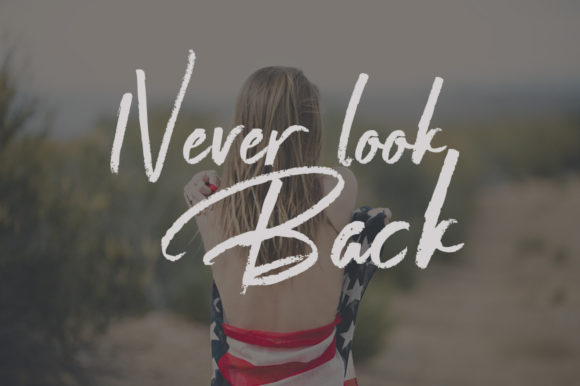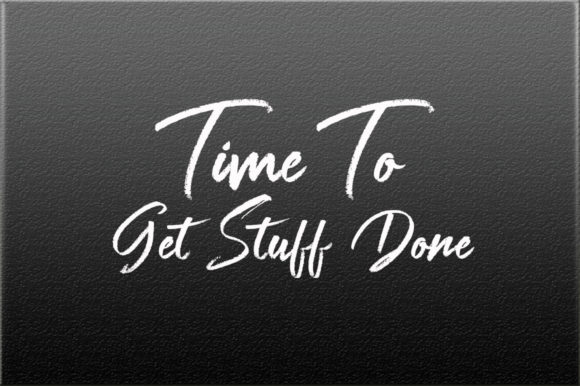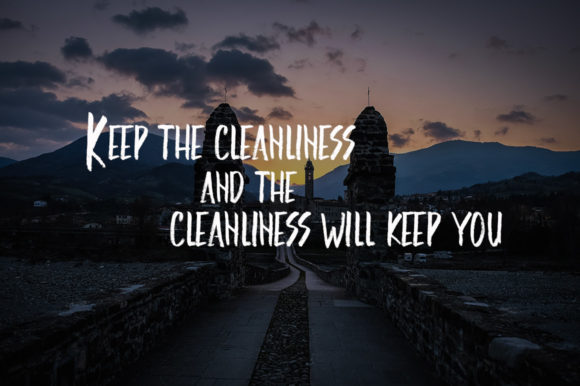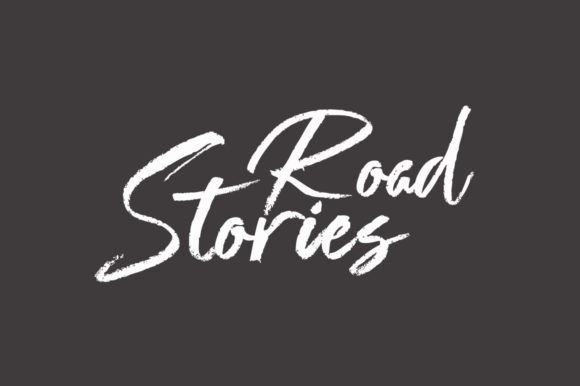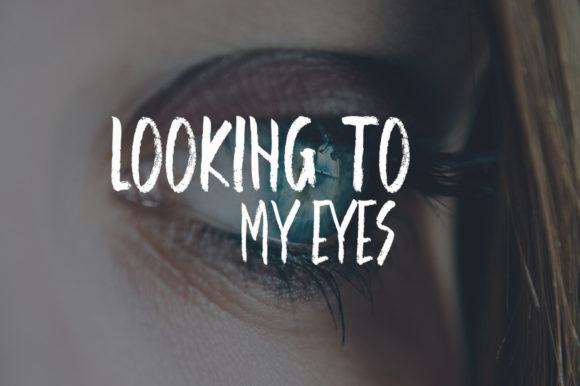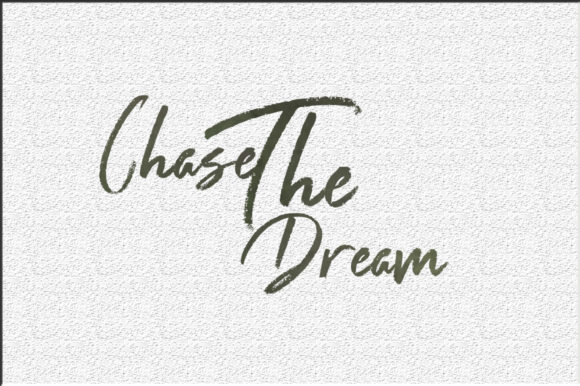
Introduction to Shutter and White Font
Do you remember that moment when you stumbled upon the perfect font for your design project? The one that took your creative vision from ordinary to extraordinary? For designers, finding that special font can be a game-changer. It’s the difference between a bland design and a stunning visual masterpiece. If you’re on the hunt for that elusive font, you’re in luck!
Today, we’re excited to introduce you to Shutter and White Font – a truly unique brush-styled handwritten font that’s sure to captivate your audience. With its high-quality design and transparent background, this font is a valuable resource for any creative project. Whether you’re working on a logo, poster, or social media graphic, Shutter and White Font is the perfect addition to your design arsenal. And the best part? It’s available for free download, making it an accessible design resource for designers of all levels.
Get ready to fall in love with Shutter and White Font and take your designs to the next level!
Key Features of Shutter and White Font
- High-quality design resource with a unique, creative style
- Perfect for use in graphic design, digital art, or as a design element in creative projects
Honest Review: Shutter and White Font
As a designer, I’m always on the lookout for high-quality design resources to elevate my creative projects. Recently, I came across the Shutter and White Font, and I’m excited to share my thoughts with you.
- ✨ Unique and modern design style that sets it apart from other fonts
- ✨ Excellent for use in creative projects, especially those that require a clean and minimalist aesthetic
- ⚠️ Limited font weights and styles available, which may not be ideal for projects that require a lot of font customization
- ⚠️ May not be suitable for use in large blocks of text, as it can become difficult to read
Overall, I’m impressed with the Shutter and White Font. While it may not be the most versatile font, its unique design style and high-quality design make it a great addition to any design resource library. With its free download availability and transparent background support, it’s definitely worth considering for your next creative project.
What is Shutter and White Font?
Shutter and White Font is a high-quality design resource that features a unique and creative font style with a transparent background, perfect for adding a touch of elegance to your projects. It’s free to download and can be easily integrated into your design workflow.
Tips for Getting the Most Out of Shutter and White Font
Experiment with different font sizes, colors, and styles to create a unique and eye-catching design. Use the transparent background to create a sense of depth and dimension in your project.
Common Use Cases for Shutter and White Font
Shutter and White Font is perfect for use in creative projects such as branding, logos, business cards, and marketing materials. It’s also great for adding a touch of elegance to presentations, documents, and websites.